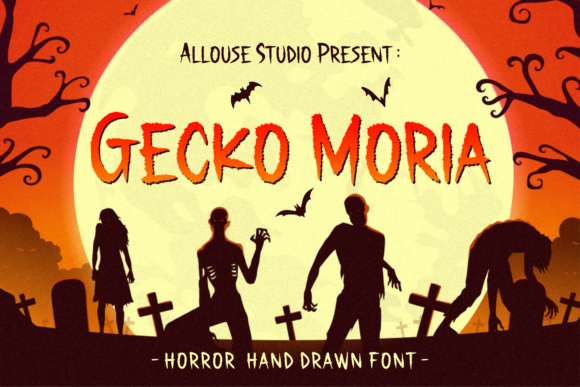
Spice Up Your Creations with the Perfect Font
As a designer, you know that sometimes it’s the smallest details that can make or break a project. Like when you’re brainstorming ideas for a spooky Halloween display, and you stumble upon the perfect font to set the mood. That’s exactly what happened to us when we discovered the Gecko Moria Font.
This cool, rough textured display font is a must-have for any Halloween-related project or crafty idea. Its creepy look and feel will transport your audience to a world of darkness and mystery. With the Gecko Moria Font, the only limit is your imagination – so get creative and unleash your inner designer!
Gecko Moria Font Key Features
- Unique Characteristic: The Gecko Moria font features a unique, hand-drawn design with intricate details and subtle texture, giving it a distinctive and eye-catching appearance.
- Font Style: This font is classified as a display font, making it ideal for use in headlines, titles, and other prominent text elements where a bold and striking visual impact is desired.
Gecko Moria Font Review
As a designer, I was excited to dive into the Gecko Moria font and see what it has to offer. Here’s my honest review:
- ✨ Unique aesthetic: The Gecko Moria font has a distinctive and quirky design that sets it apart from other fonts. Its blend of digital and analog elements creates a visually interesting look.
- ✨ High legibility: Despite its unusual design, the font is surprisingly easy to read, even at small font sizes.
- ✨ Versatility: The font is available in a range of weights and styles, making it suitable for a variety of design projects.
- ⚠️ Limited font family: The Gecko Moria font is relatively small, with only a few weights and styles available. This may limit its use in certain design projects.
- ⚠️ Not suitable for body text: Due to its unique design, the font may not be the best choice for large blocks of body text. It’s better suited for headings, titles, and other smaller text elements.
Overall, I think the Gecko Moria font is a great addition to any designer’s toolkit. While it has its limitations, its unique aesthetic and high legibility make it a great choice for creative projects. Just be mindful of its limitations and use it in the right context.
Tips for Getting the Most Out of the Gecko Moria Font
Here are a few tips to help you get the most out of the Gecko Moria font:
- Use the font in conjunction with bold or italic text to create emphasis.
- Combine the font with other design elements, such as images or shapes, to create a unique look.
The Gecko Moria font is well-suited for:
The recommended font size range for the Gecko Moria Font is between 12pt and 48pt. This range allows for optimal readability and visual appeal in various design applications, including digital and print media.